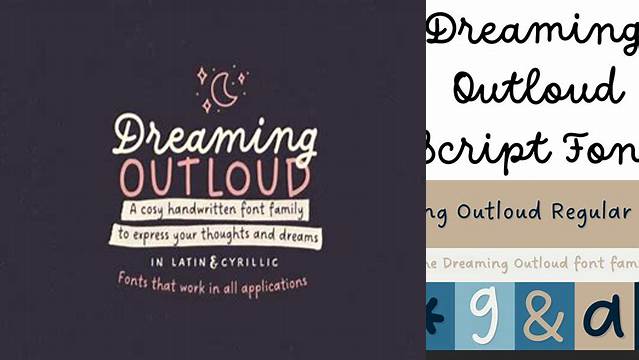
Hey there, design enthusiasts! Ever stumbled upon a font that just screams personality? Well, let't dive into the wonderful world of the "Dreaming Out Loud" font – and the best part? You can find a free download! We're talking about a font that's perfect for adding a touch of whimsy, elegance, or even a dash of vintage flair to your projects. Whether you're a seasoned designer or just starting out, this guide will walk you through everything you need to know about getting your hands on this delightful font, and how to make the most of it.
Understanding the Allure of "Dreaming Out Loud" Font
Guys, before we get to the download links, let's chat about why "Dreaming Out Loud" is such a beloved font choice. This isn't just any typeface; it's an experience! Imagine a font that embodies the spirit of handwritten notes, vintage posters, and fairy-tale narratives. That's the essence of "Dreaming Out Loud." Its unique character stems from its slightly imperfect, yet charming, letterforms. It offers a sense of authenticity that digital fonts often lack. Think of it as the visual equivalent of a cozy, hand-knitted sweater – warm, inviting, and full of character. This font is particularly effective when you want to convey a sense of creativity, playfulness, or nostalgia. It has a way of making your designs feel more personal and approachable, which is a huge win in today's digital landscape. So, whether you're crafting a wedding invitation, designing a logo, or sprucing up your blog, this font can truly make your work stand out. It's all about creating an emotional connection with your audience, and this font is a master at that. The beauty of this font also lies in its versatility. It can be used in a variety of contexts, from print to digital, without losing its charm. However, it's the subtle imperfections that make it so unique, adding a touch of authenticity that’s hard to find elsewhere. So, if you're looking to inject some personality into your designs, this font should definitely be on your radar.
Exploring the Aesthetics and Personality of the Font
Let’s dive deeper into the aesthetics of this font, shall we? "Dreaming Out Loud" isn't just a font; it's a statement. It typically carries a vintage vibe, often reminiscent of classic scripts and handwritten styles. The design often has a slight slant, adding dynamism and a sense of movement. The letterforms themselves are usually graceful, with a touch of informality. Some variations might include flourishes, swashes, or alternative letter shapes that elevate the design. The personality of this font is playful and inviting. It leans into the idea of dreams, creativity, and the beauty of the imperfect. This font is like that cool friend who’s always up for an adventure. It's great for projects that aim to connect with an audience on an emotional level. The aesthetic is perfect for conveying a sense of romance, whimsy, or vintage elegance, making it an excellent choice for invitations, greeting cards, or branding projects. The font often strikes a balance between being elegant and easy-going, perfect for adding a unique flavor to various design projects. Furthermore, the way letters connect or overlap within the font often adds visual interest and gives the impression of being handwritten. The vintage feel and handcrafted appearance of the typeface create a strong visual impact, which is a key factor in grabbing the attention of viewers and creating a memorable impression. You'll notice the font’s ability to transform ordinary text into eye-catching visual elements, perfect for expressing emotions and telling stories.
Key Features and Characteristics of "Dreaming Out Loud" Style
What are the key features, you ask? Well, the primary trait of "Dreaming Out Loud" is its handwritten appearance. It gives an authentic, human feel, steering clear of the cold, mechanical look of some digital fonts. This handwriting-style font comes with a strong sense of individuality, making it appear to be unique, just like a signature. The font often includes a slight slant, adding to its dynamism and making the text visually engaging. It's perfect for creating a sense of movement, or evoking the illusion of a handwriting style, as if it has been produced by a calligraphic pen. Moreover, “Dreaming Out Loud” fonts may also feature variations in letter size and shape, adding a unique artistic flair. This aspect provides a more dynamic feel to the text, moving it away from the uniform look, common in many fonts. Many versions of the font also often include swashes and flourishes. These are decorative elements that add visual interest, making the text more appealing, especially for branding and creative projects. Another key feature is the font’s excellent legibility. Despite its stylized and artistic qualities, "Dreaming Out Loud" fonts are usually very readable. This is crucial for ensuring that your message gets across without any issues. The font can typically be used in a range of contexts, from website headers to printed materials. Finally, many free downloads of this font come with a wide range of characters, including multiple language support. This broad feature ensures that you can use the font for various global projects. This flexibility is very helpful for designers targeting various audiences. Understanding these core characteristics will help you get the most out of your designs.
Tips for Maximizing the Font's Impact in Your Projects
To really make your projects stand out with this font, here's what you should know. First, use it strategically. It’s best for headlines, quotes, or short phrases. Don't use it for large blocks of text. Pair it with a clean, readable font for body text. This creates a good balance and maintains readability. Next, consider the size. It's important to use it at a size that's easy to read. Too small, and it's difficult to see. Too large, and it can overwhelm your design. Always think about color. The font's visual contrast can be improved by using a contrasting background color. It helps the text stand out. Also, make use of the font's unique style. It's meant to be creative. By experimenting with different layouts, you can create a visual impact. Pay attention to your design's overall theme. If you're aiming for a vintage look, match this font with a muted color palette. Make sure it complements your project's message. Proofread all text. Double-check for spelling errors. This is crucial for presenting a polished, professional design. Be creative. Add this font to your design, and see how your work comes to life.